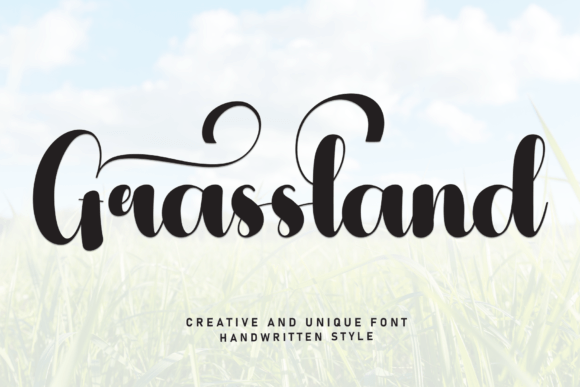
Journey into the world of Grassland Font, a script font family that captivates with its natural allure. Inspired by the serene expanses of grassy plains, this font exudes tranquility and rustic charm. Its flowing curves and subtle textures evoke a sense of harmony, making it an ideal choice for designs that seek to connect with the beauty of nature.
Unleash your creativity with Grassland Font, crafted by the talented William Jhordy. This versatile typeface opens up a world of possibilities, whether you're designing eco-friendly projects, branding natural products, or creating earthy aesthetics. Its organic form brings a touch of natural elegance to any composition, inviting viewers to immerse themselves in its serene beauty.
With Grassland Font as your design companion, you'll capture the essence of nature's tranquility and bring a breath of fresh air to your projects. Its delicate strokes and organic textures evoke a sense of serenity, making it perfect for designs that aim to create a calming and harmonious atmosphere.
Dive into the depths of Grassland Font and discover a world where nature and creativity intertwine. Its flowing curves and earthy textures will elevate your designs, adding a touch of rustic charm to your creations. Embrace the beauty of the natural world and let Grassland Font guide you towards design excellence.